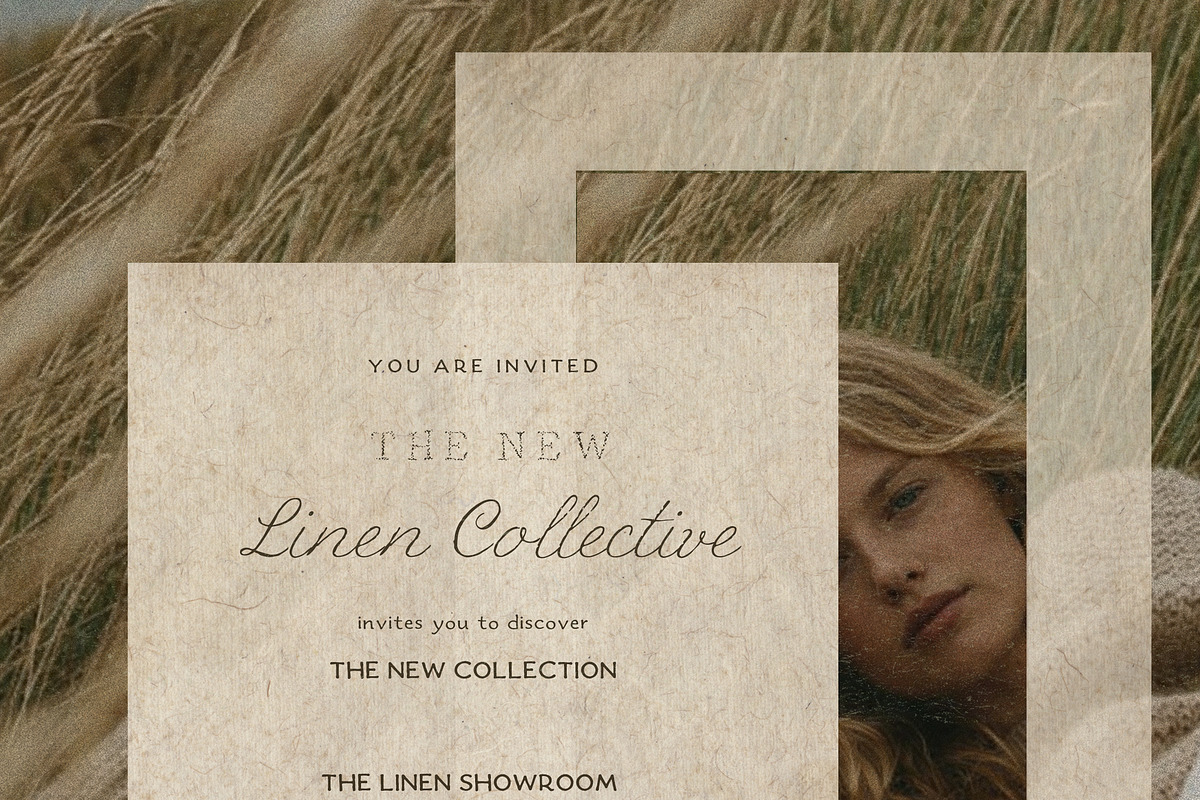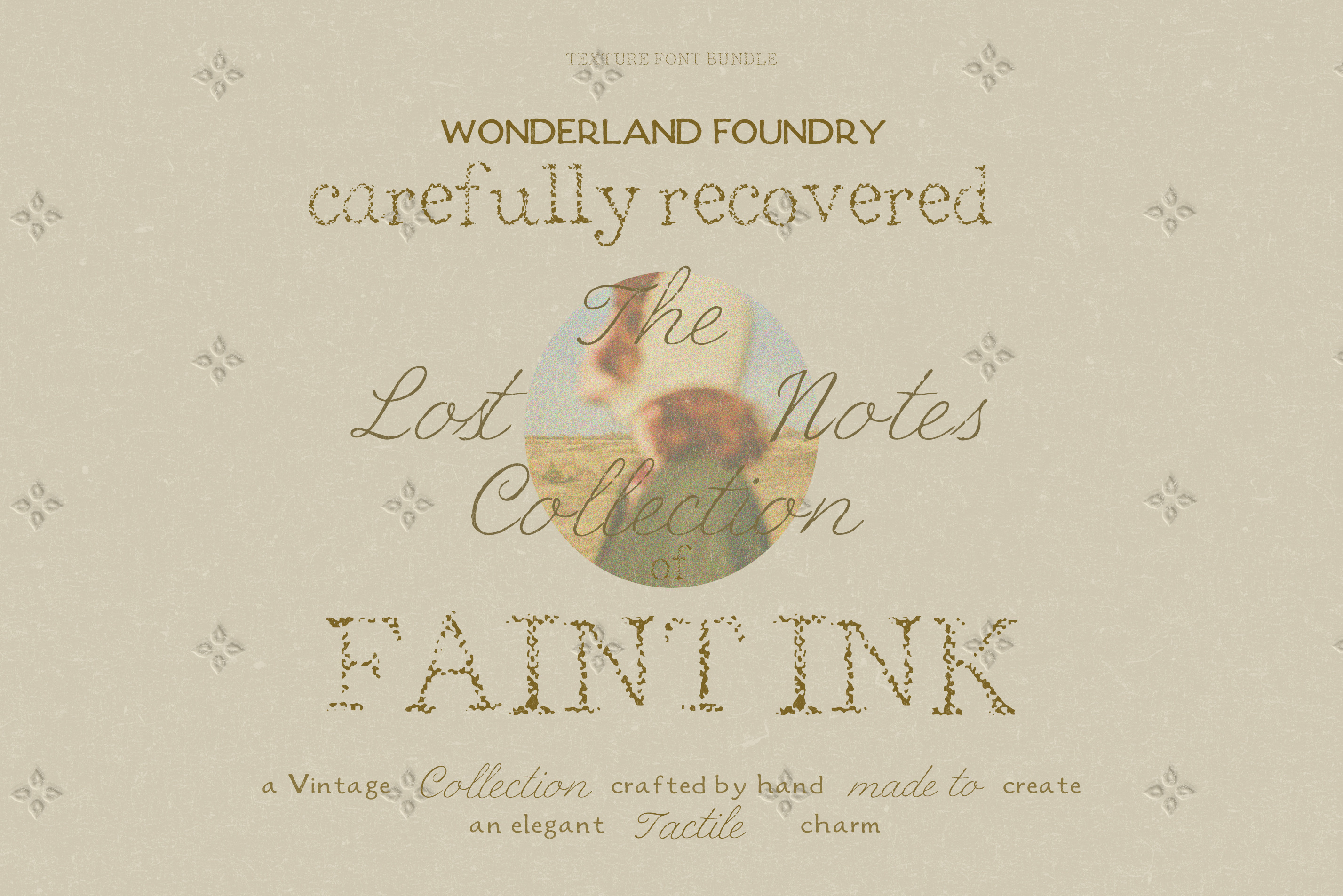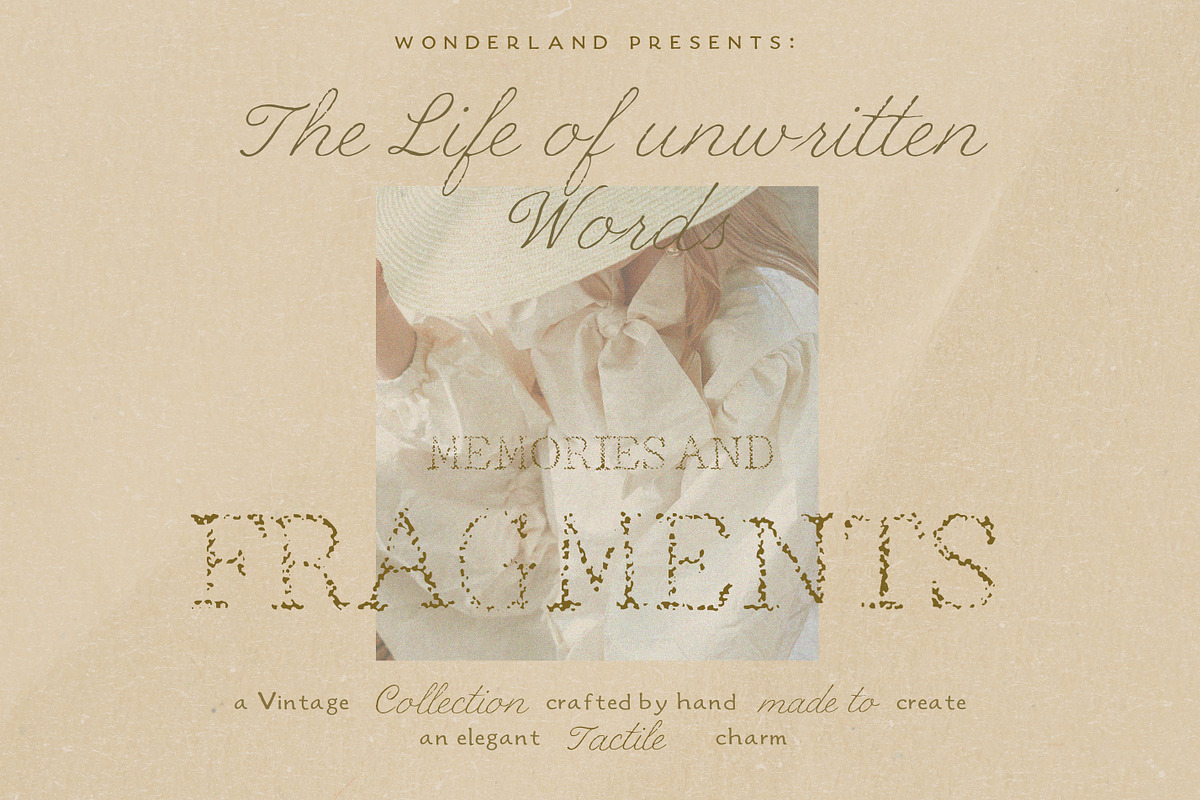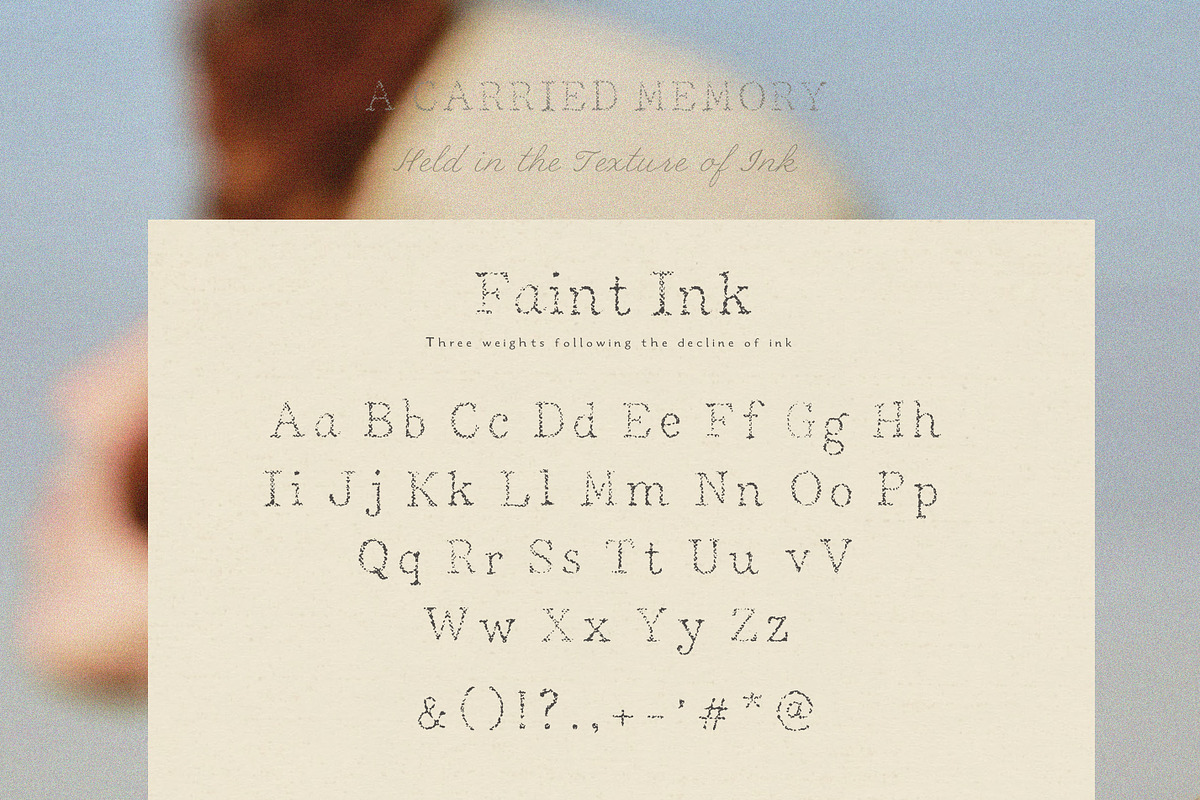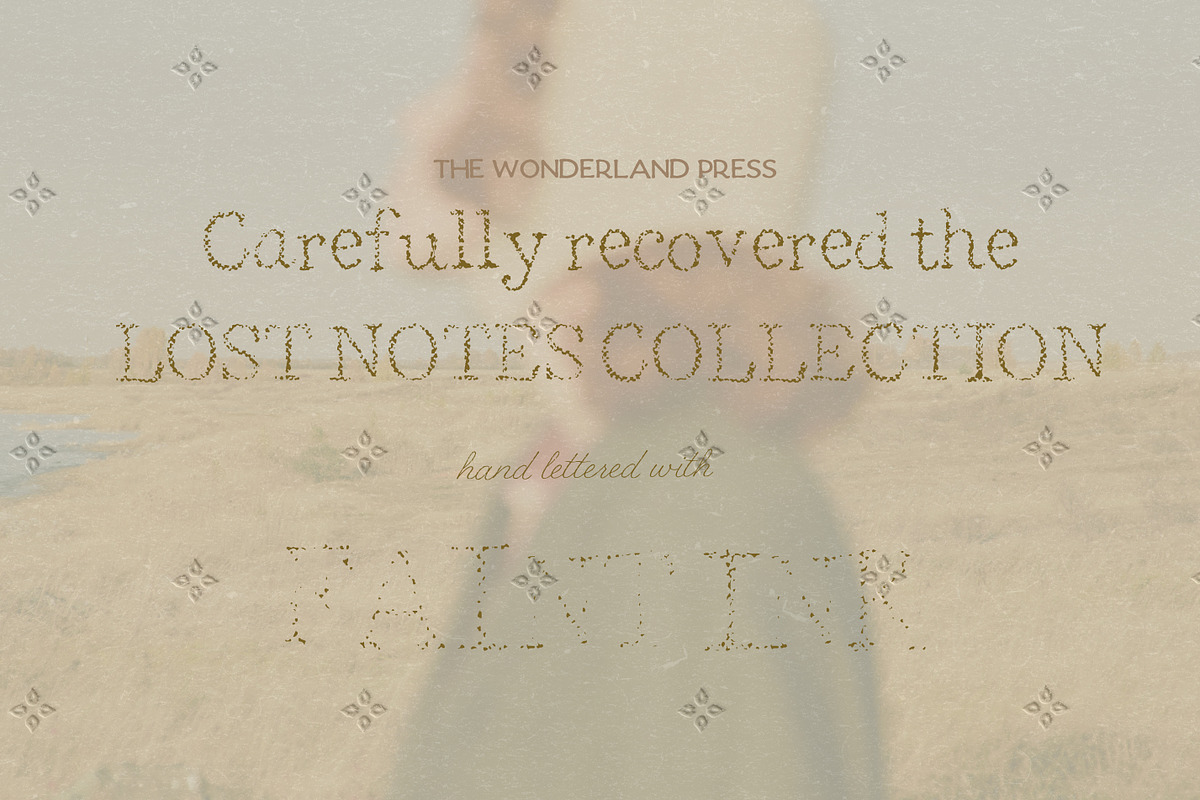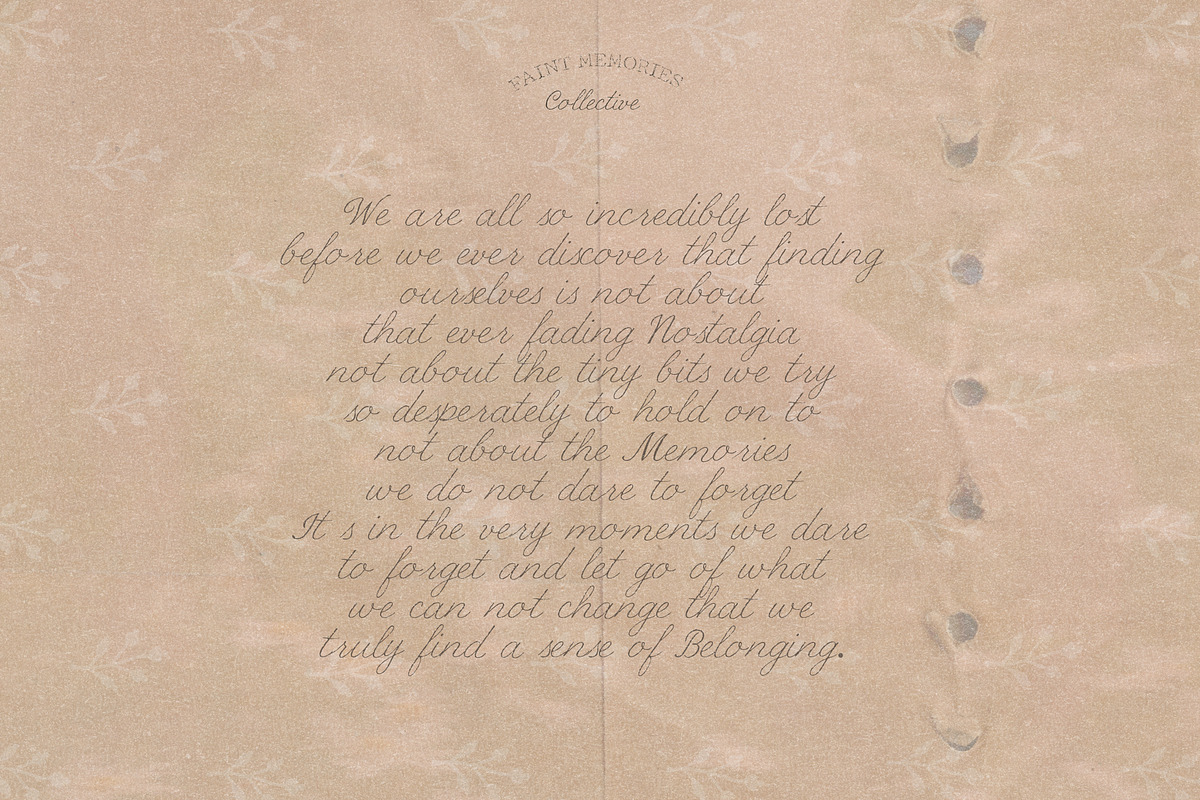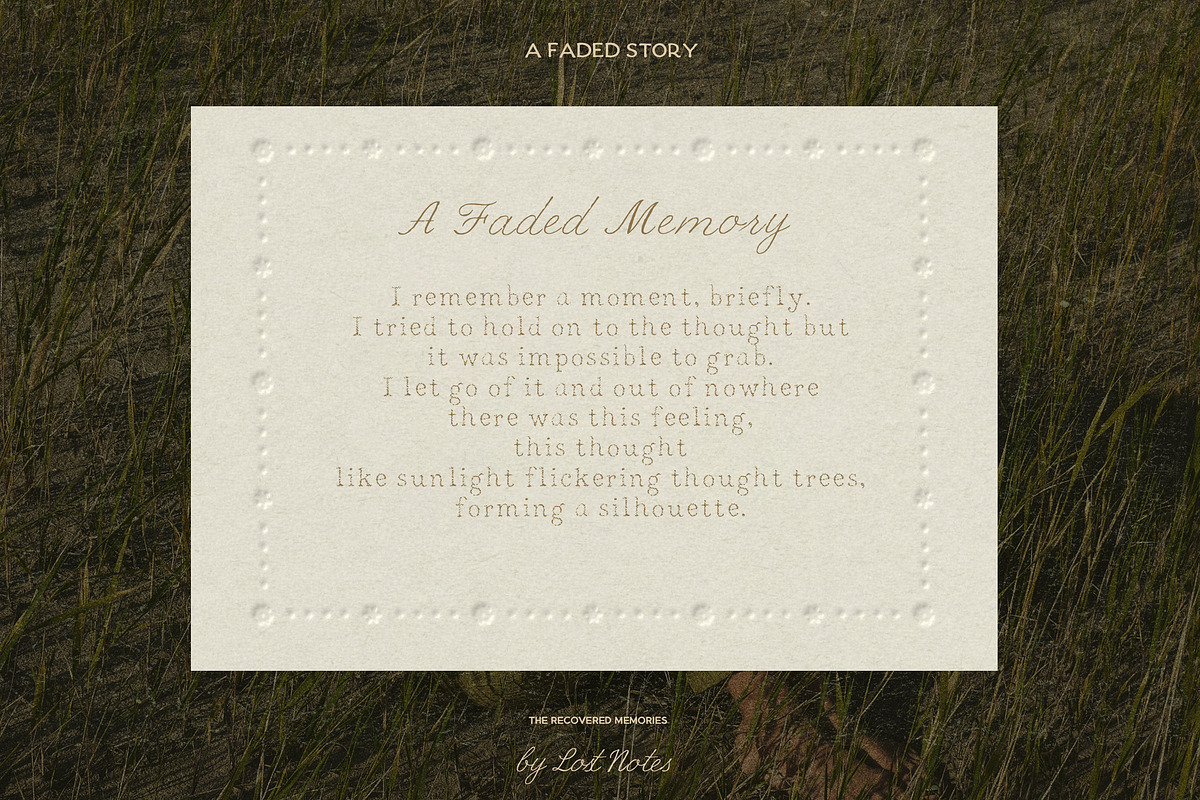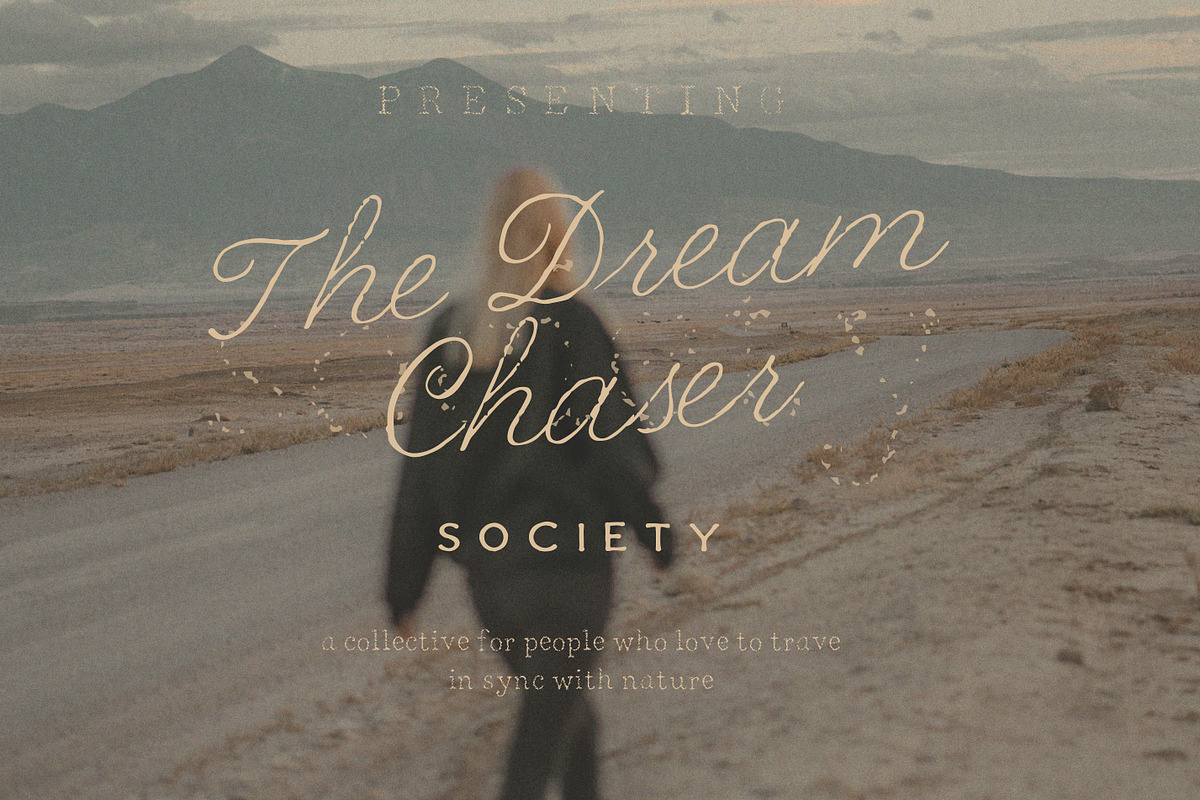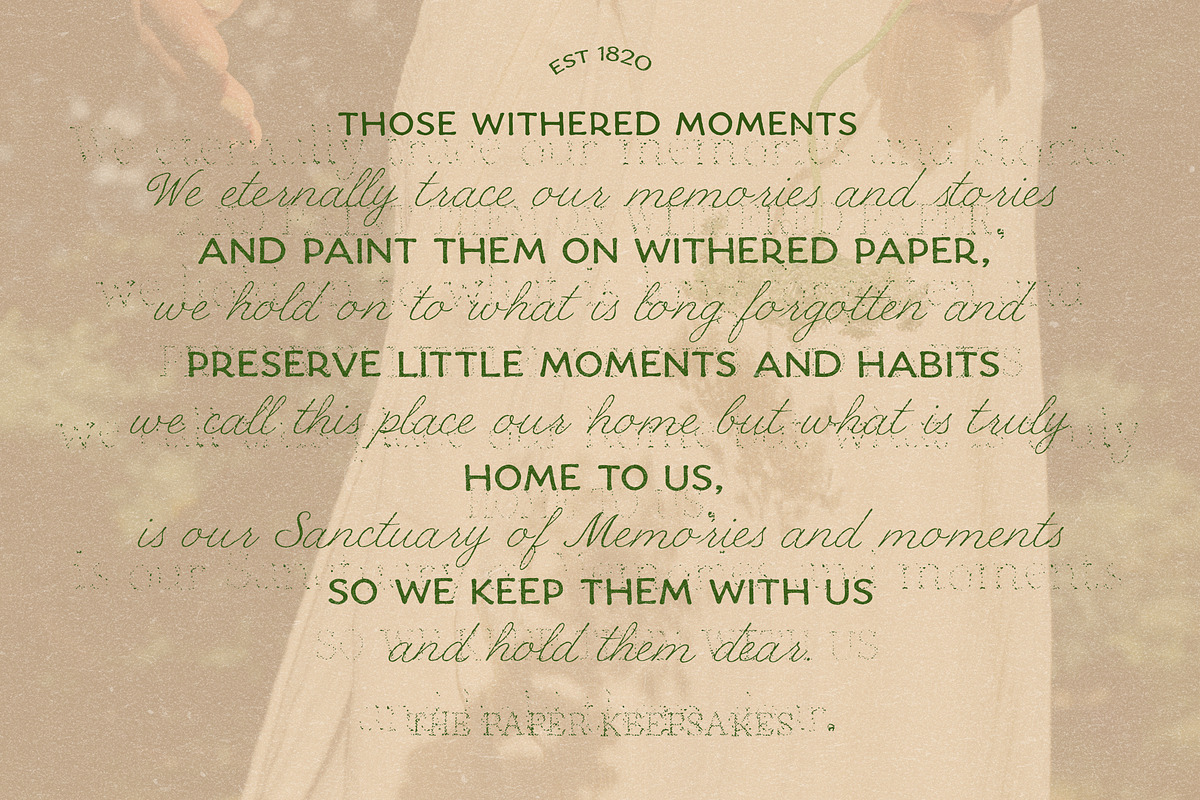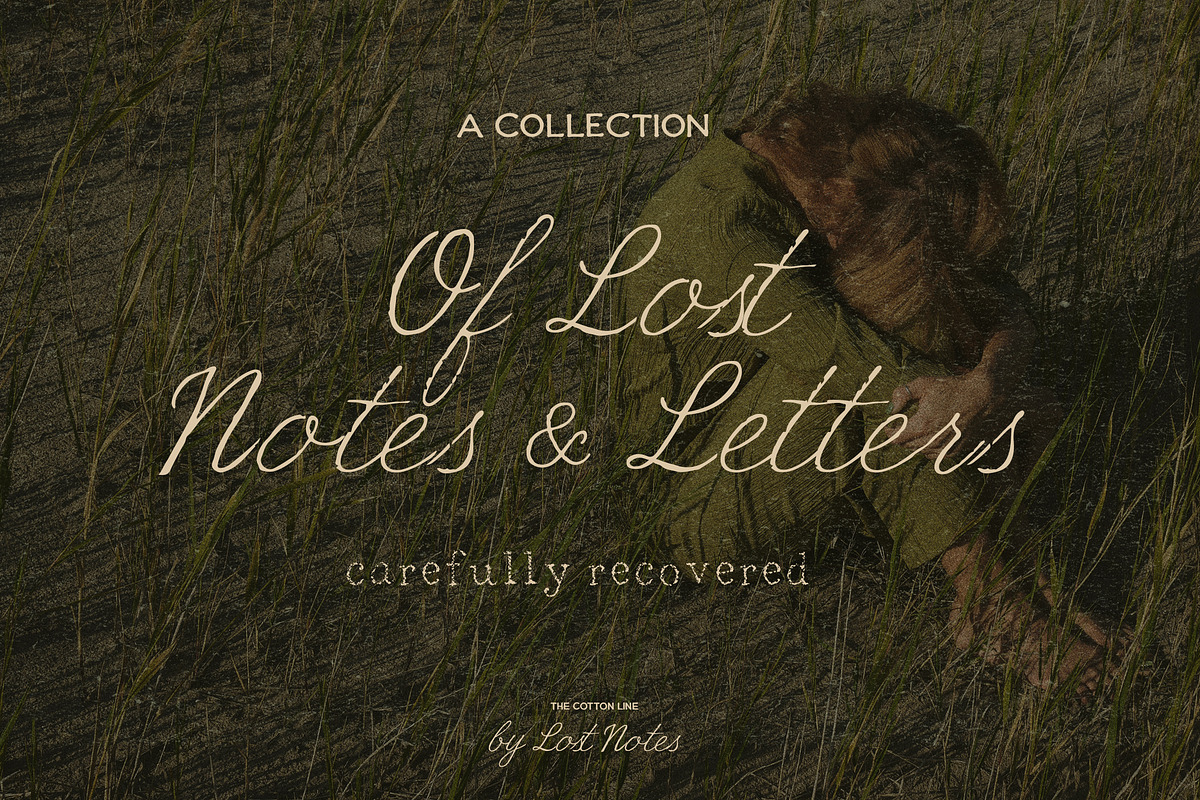
Handwritten Ink Pencil Texture Fonts
Discover the magic of authentic texture, carefully brought to life in a collection of 5 handcrafted fonts. Every detail is crafted with care for tactile designs and an outstanding look.
Discover a perfect font pairing of a clean yet vintage sans, a pencil script and a textured serif that comes in three weights that perfectly mimic the effect of fading typewriter or printer ink.